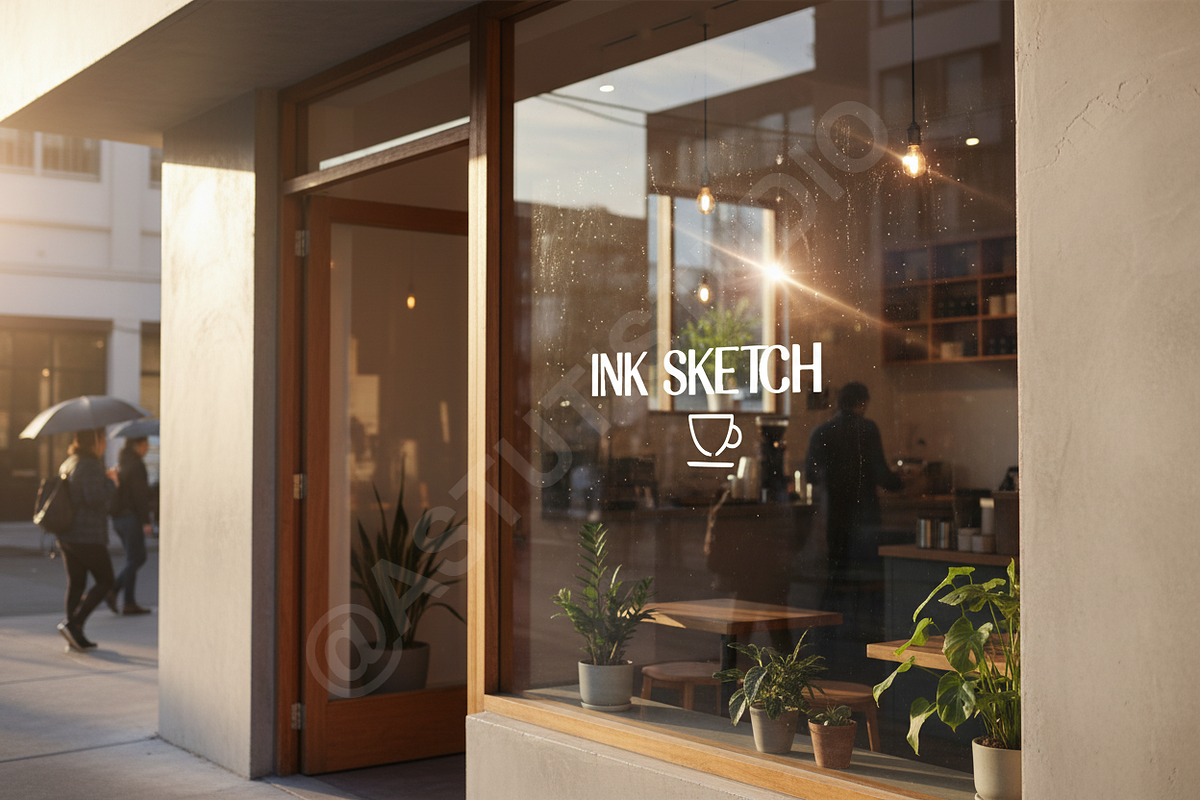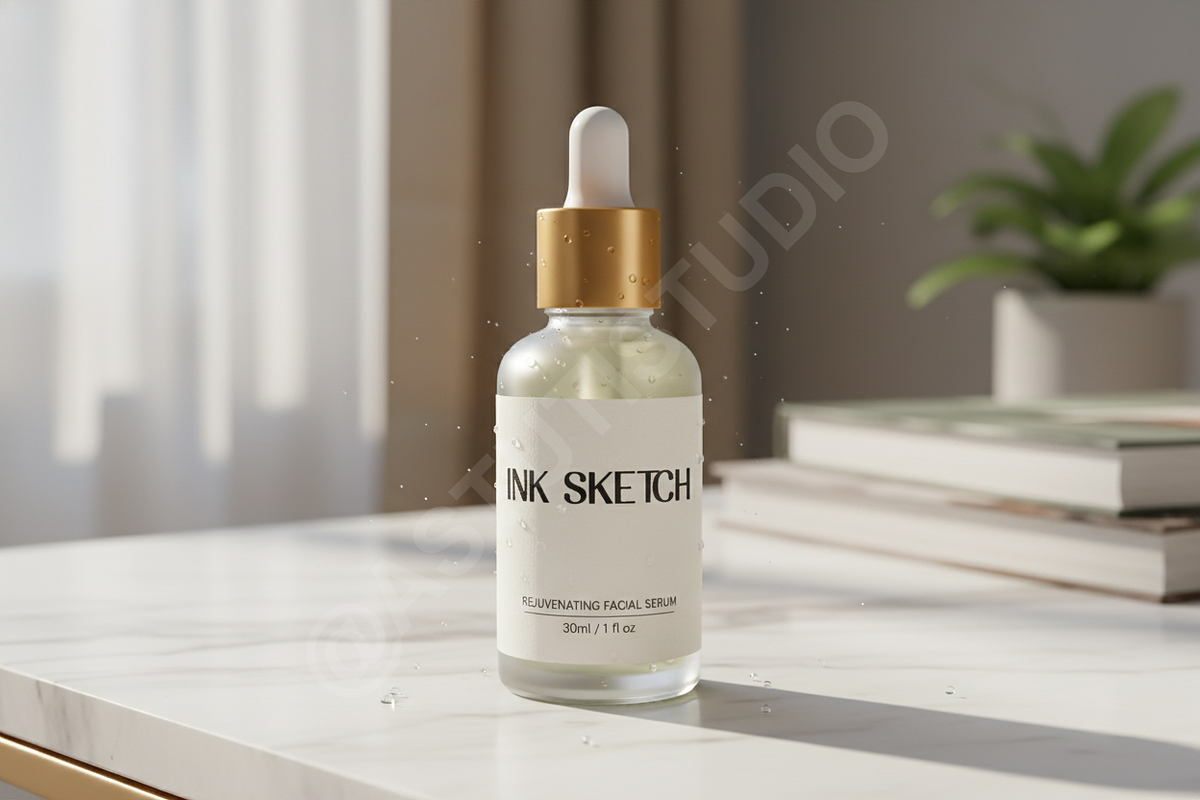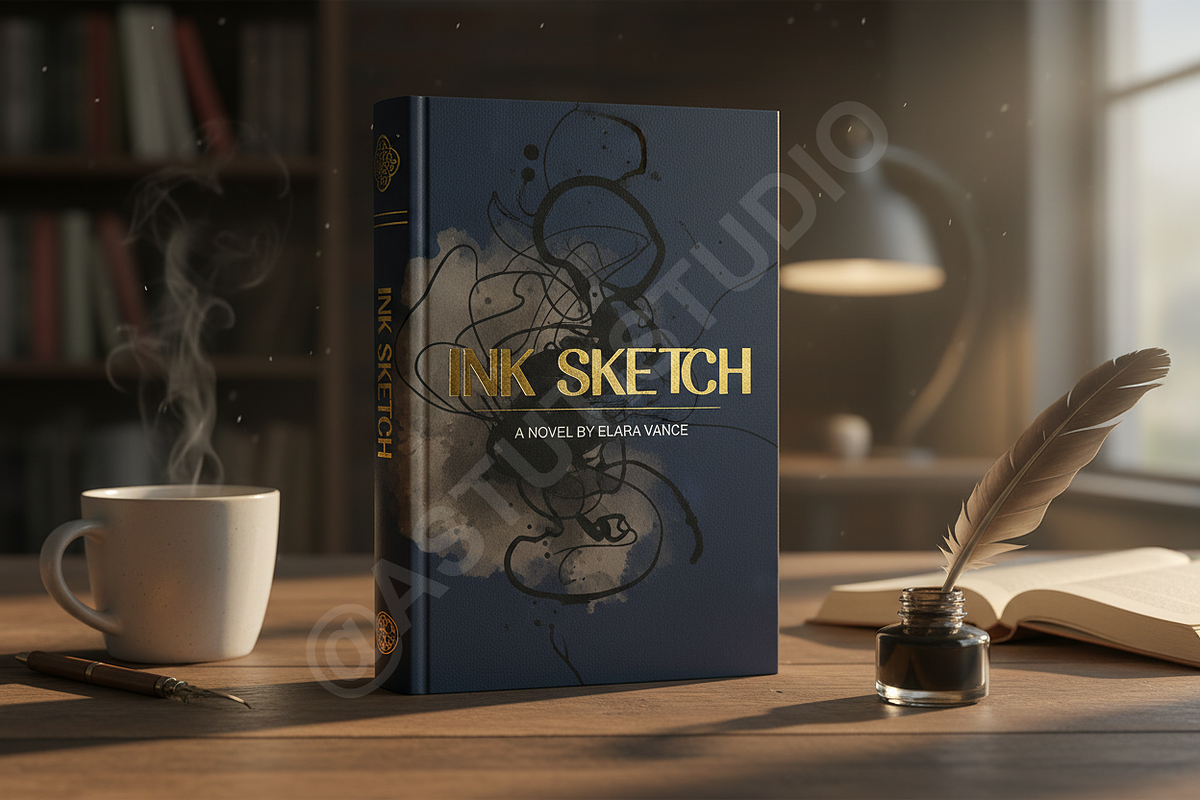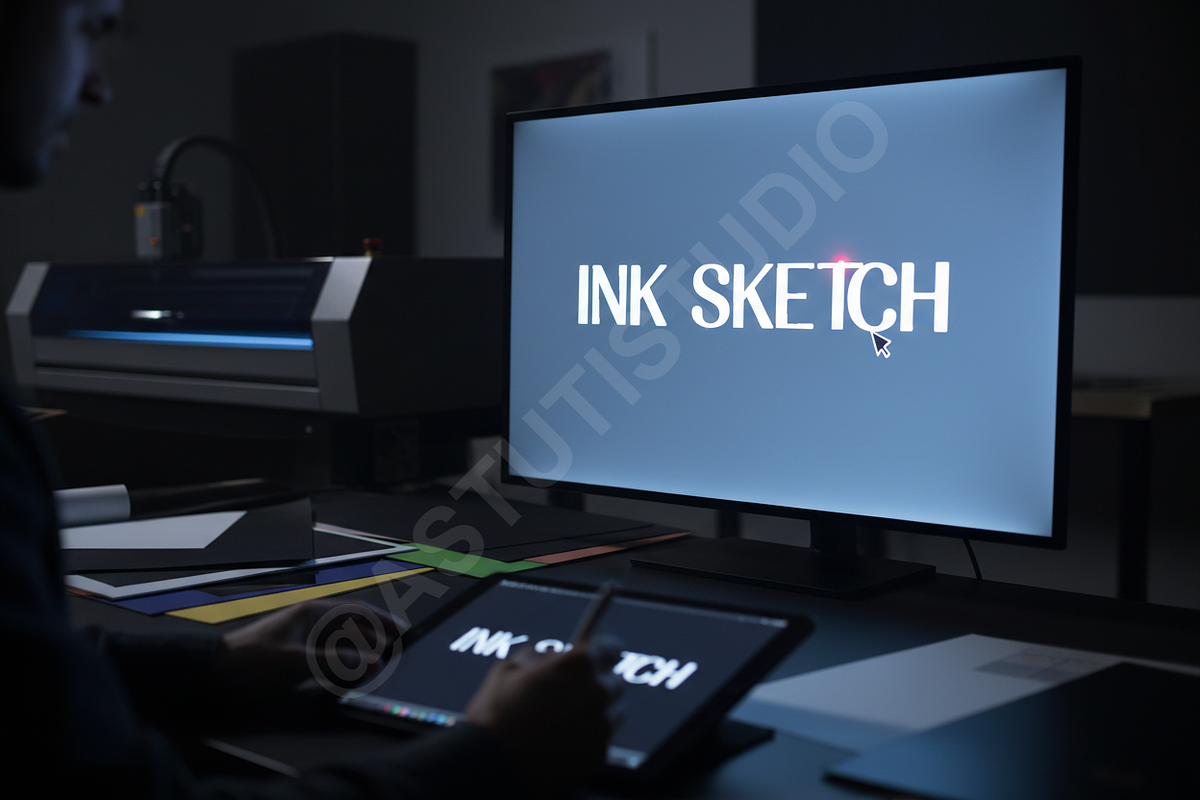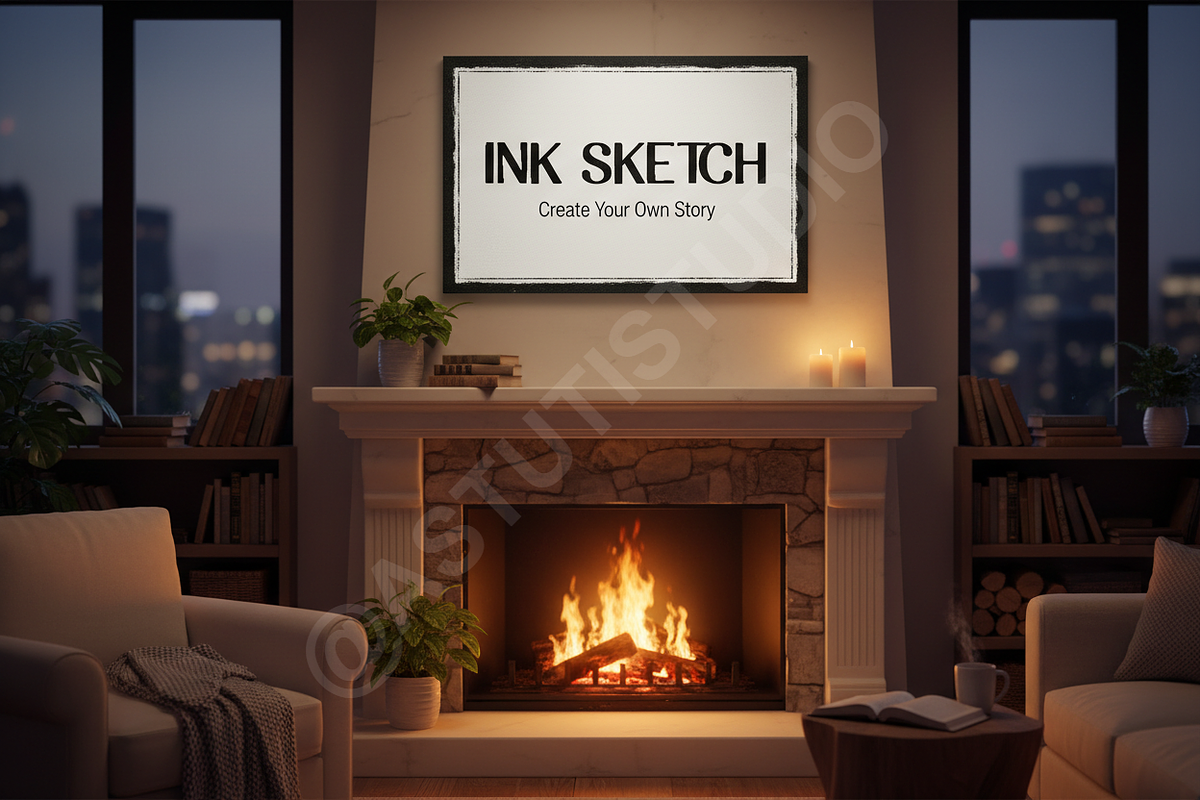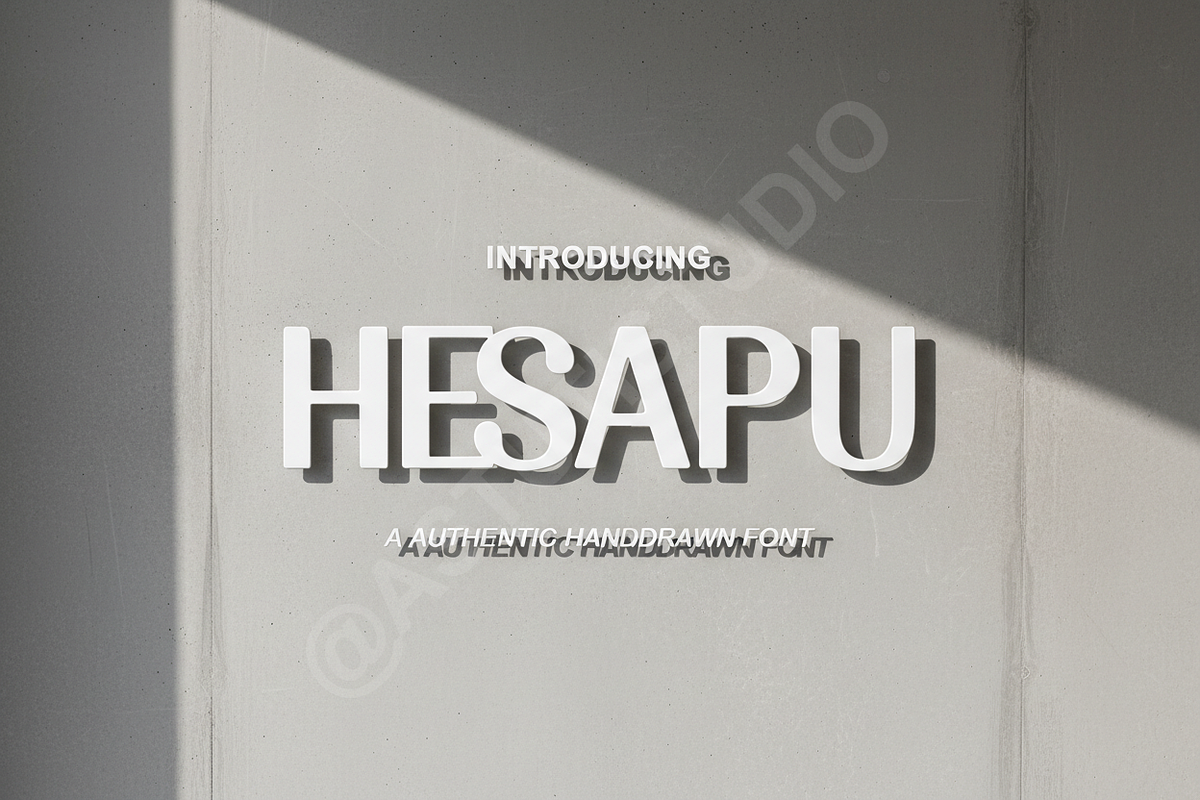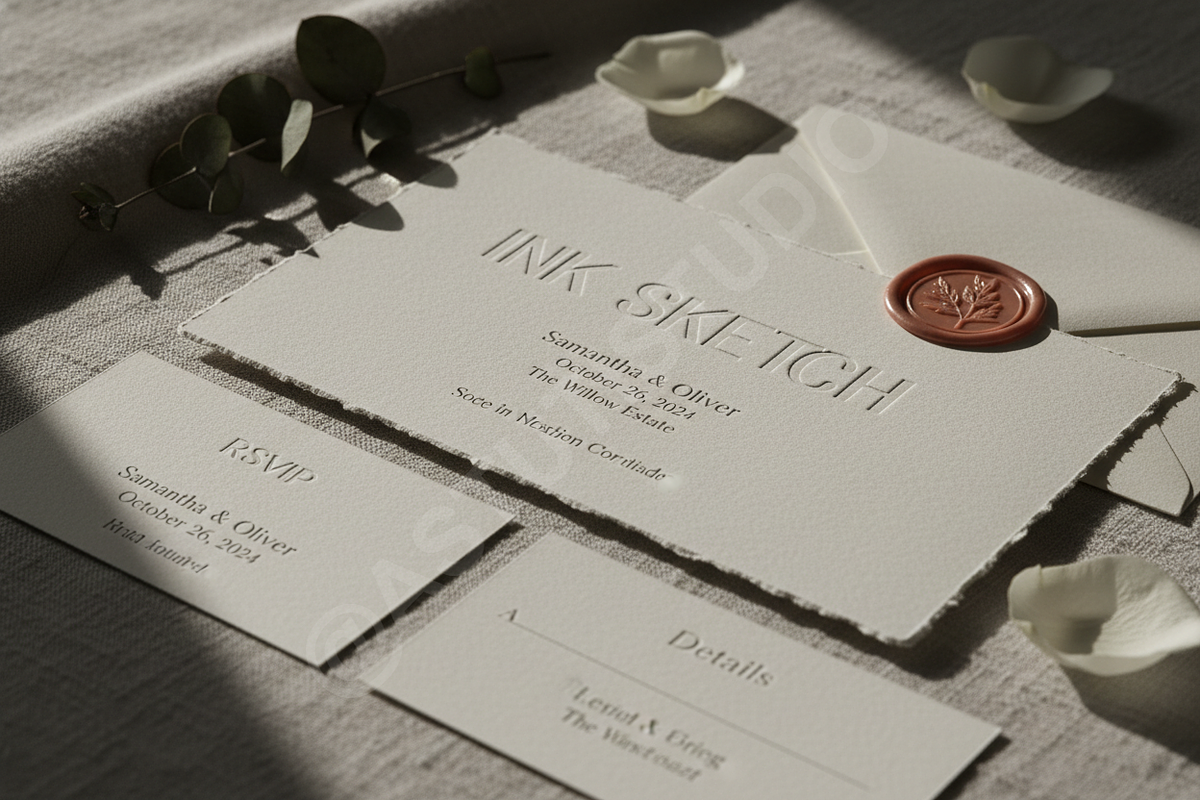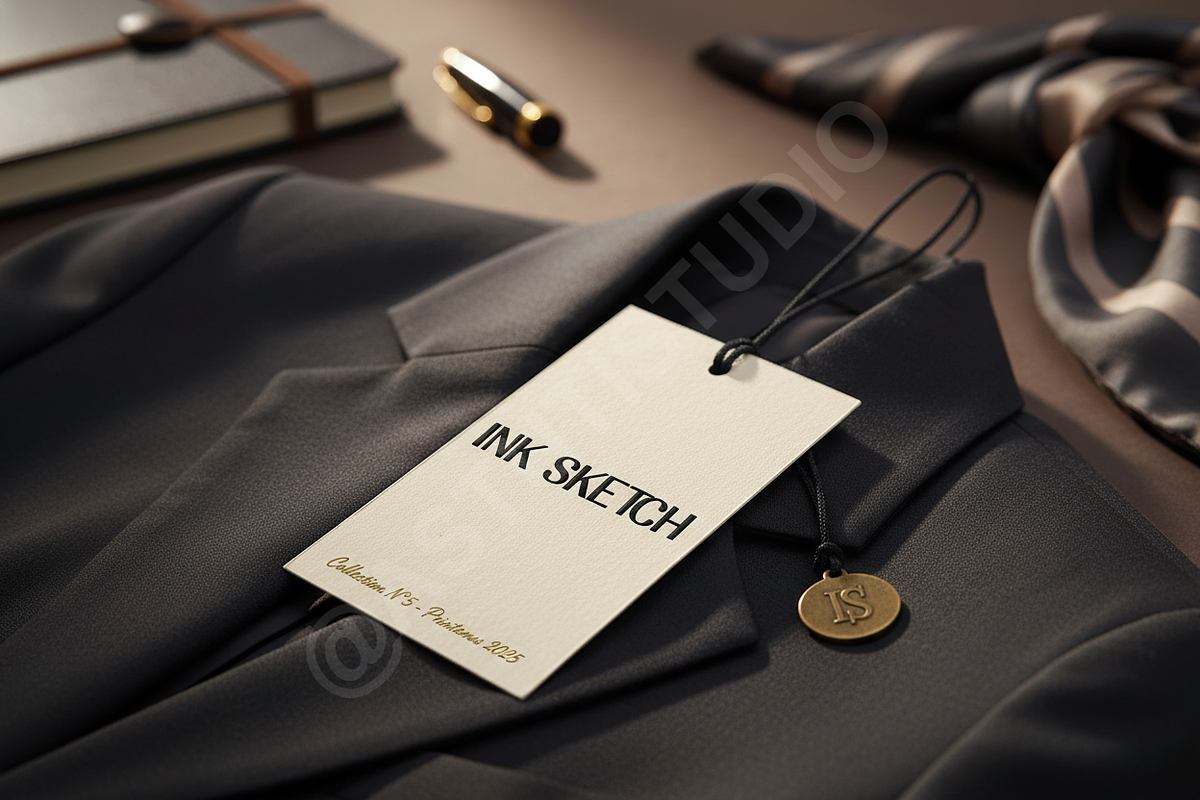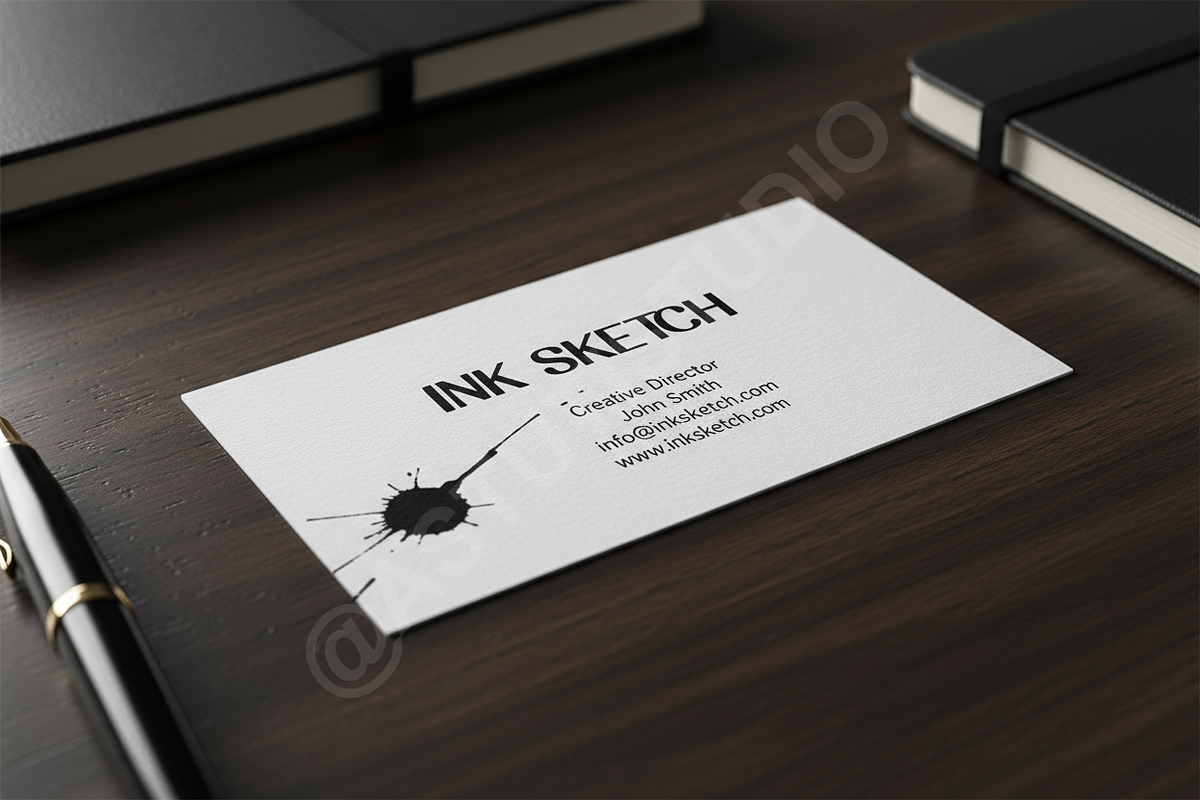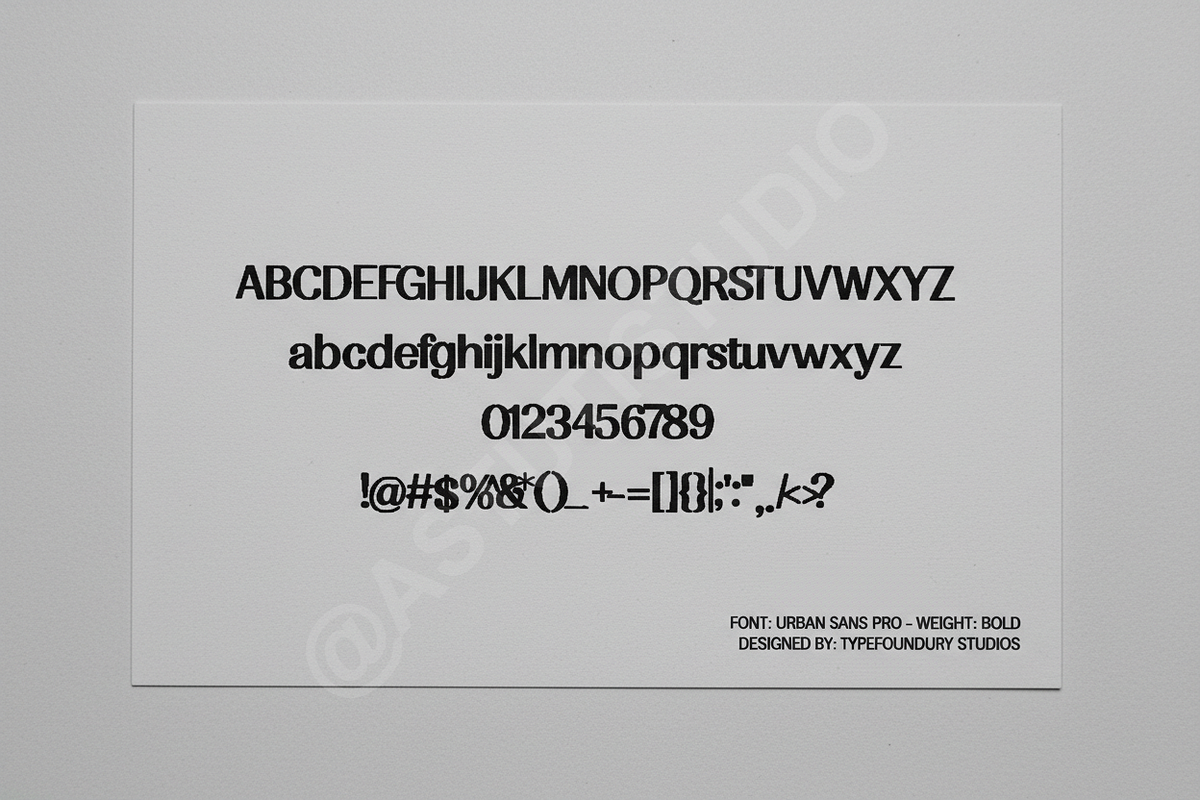
Hesapu | Modern Luxury Serif Typefac
Introduction Hesapu is a premium serif typeface meticulously crafted for elegance and timeless appeal. Designed with a focus on high-contrast strokes and refined terminals, it brings an air of sophistication to any creative project. Whether you are developing a luxury brand identity, designing a high-end editorial layout, or creating elevated social media content, Hesapu provides a professional touch that commands attention.
- Elegant high-contrast serif design
- Extensive ligature set for unique typography
- Stylistic alternates for creative flexibility
- Comprehensive multilingual support
- Perfectly balanced kerning for professional readability
- Optimized for both print and digital applications
- Full set of uppercase and lowercase letters
- Comprehensive numbers, punctuation, and symbols
- Access to stylistic alternates and ligatures